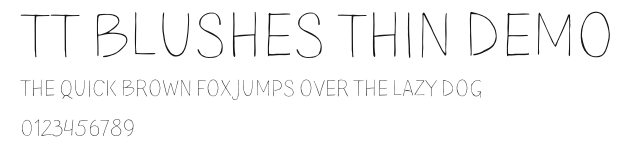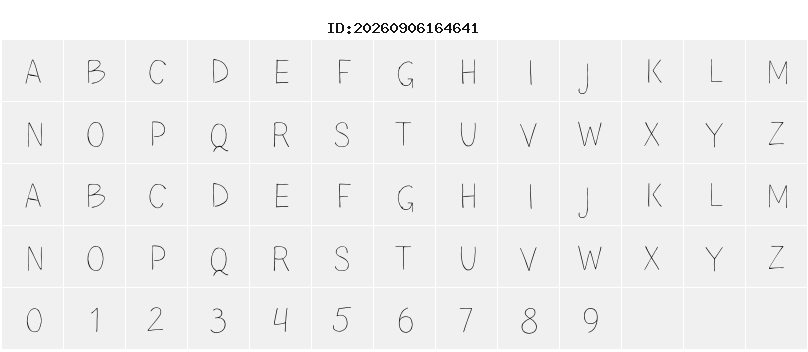
• Designer: TypeType
• Manufacturer: TypeType
• Description: Designed for Typetype in 2016 by Ivan Gladkikh. TT Blushes is one of series of fontfamilies which were designed for use in web and mobile applications, print and multimedia environments.
TT Blushes Thin DEMO.otf is a modern, elegant sans-serif font designed for ultimate readability and visual harmony. Perfect for branding, headlines, web design, and print materials.